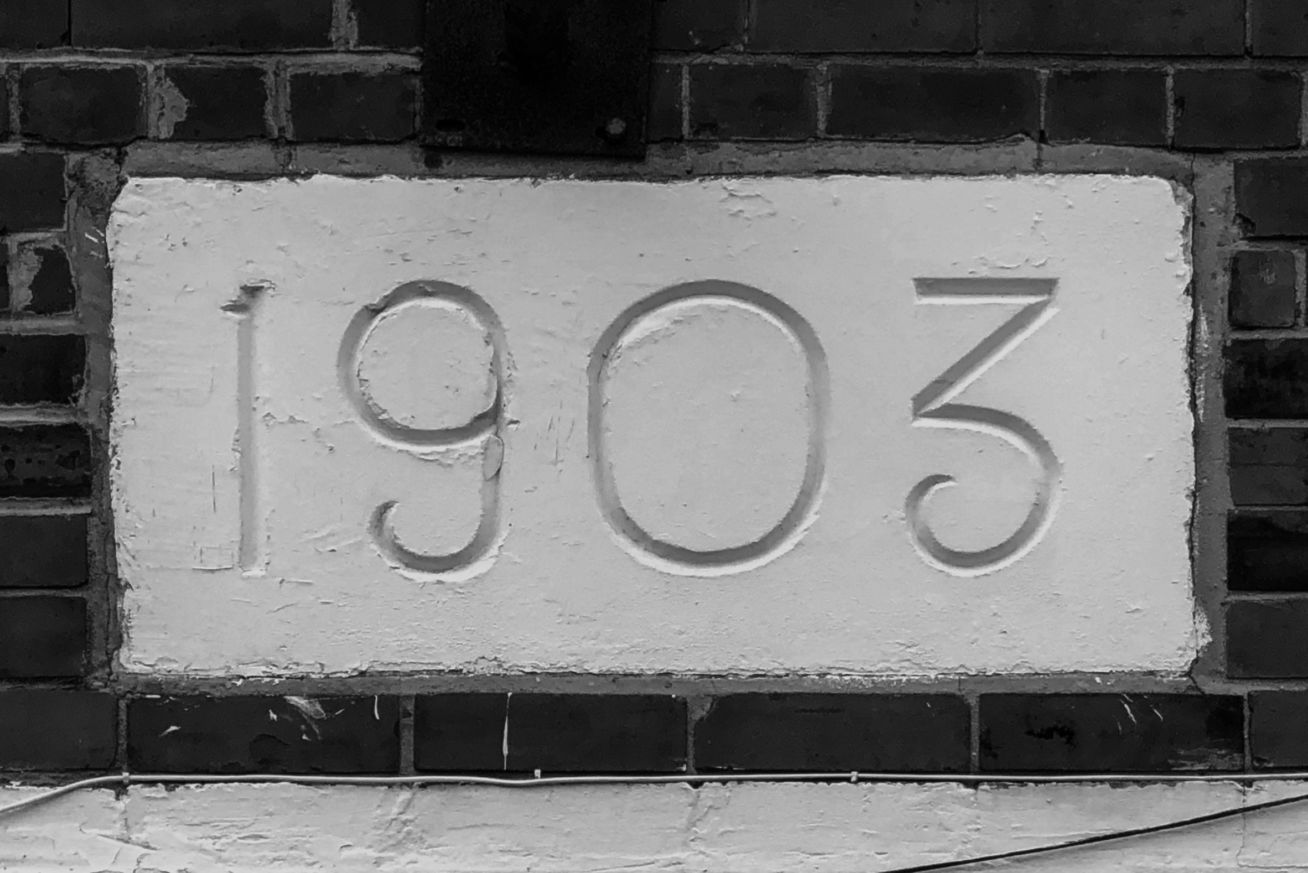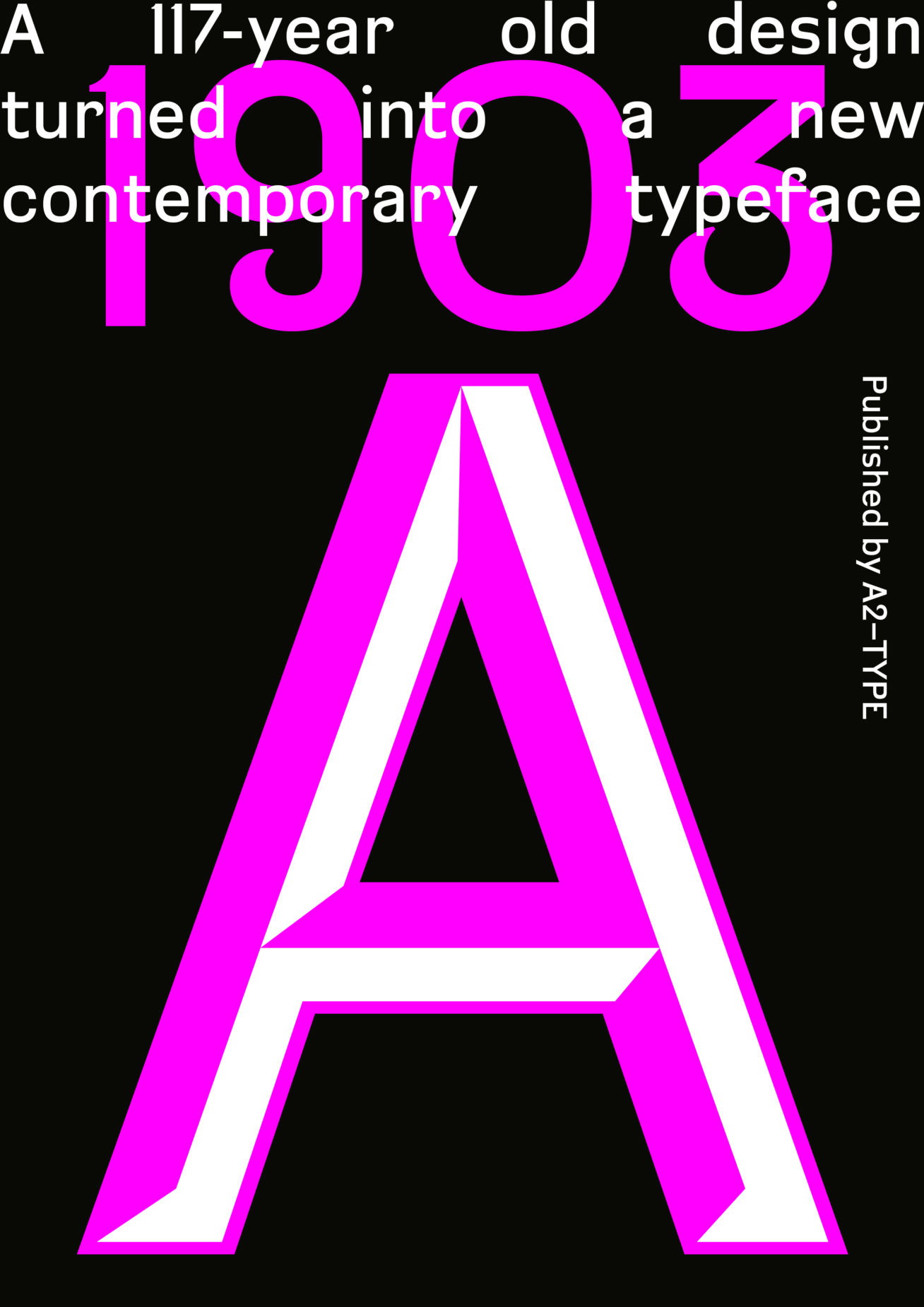
1903 is a typeface inspired by carved lettering found on a datestone above the main entrance to what once was Homerton Terrace railway in east London. Using only four numerals, ‘1’, ‘9’, ‘0’ and ‘3’, as source material for a new font is both daunting and liberating – 1903 is not a revival of a historical font, but rather an open-ended exercise exploring how a unique style of lettering translates into a modern, contemporary typeface – a font that is legible and readable in small point sizes, yet impactful, with plenty of quirks in large point sizes. 1903 is available in one weight and two styles: Solid and Chiseled; the latter style pays homage to the hand carved original source.
1903 SOLID
Sans/Grotesque
Poster/Display  |
| Designer: | Henrik Kubel |